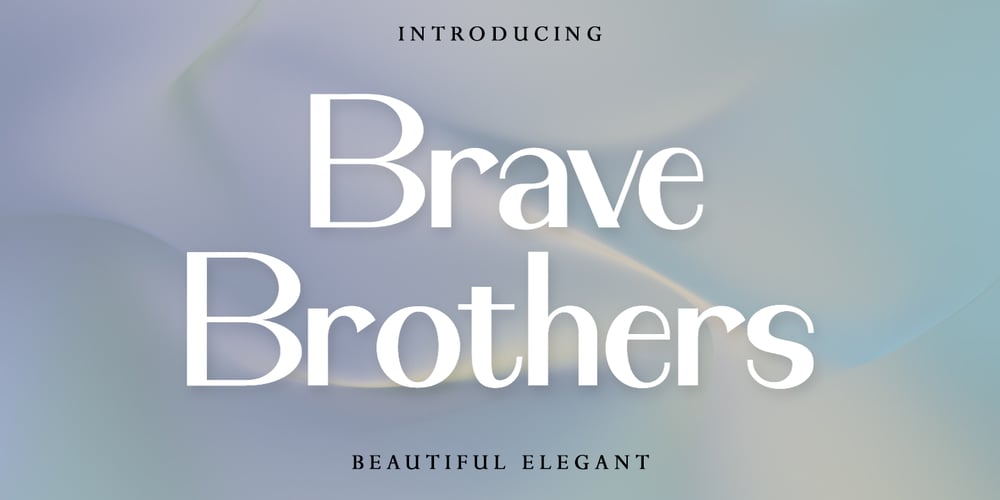
Brave Brothers Font Family was designed by Nanda Putra Sukmayadi and published by Strong. Brave Brothers contains 1 styles and family package options. Brave Brothers is a stylish modern font that’s perfect for use in fashion-related design projects. Its elegant thin font makes it ideal for branding and logo design, while low legibility height makes it perfect for use in websites, advertising, and other types of communications. Brave Brothers Modern Font is perfect for adding a touch of luxury and elegance to your designs. This stylish font was created with care to be perfect for use in modern fashion logos, websites, and marketing materials. Brave Brothers is a stylish modern font that’s perfect for use in fashion-related design projects.Its elegant thin font makes it ideal for branding and logo design, while low legibilityheight makes it perfect for use in websites, advertising, and other types of communications.Brave Brothers Modern Font is perfect for adding a touch of luxuryand elegance to your designs. This stylish font was created withcare to be perfect for use in modern fashion logos,websites, and marketing materials.